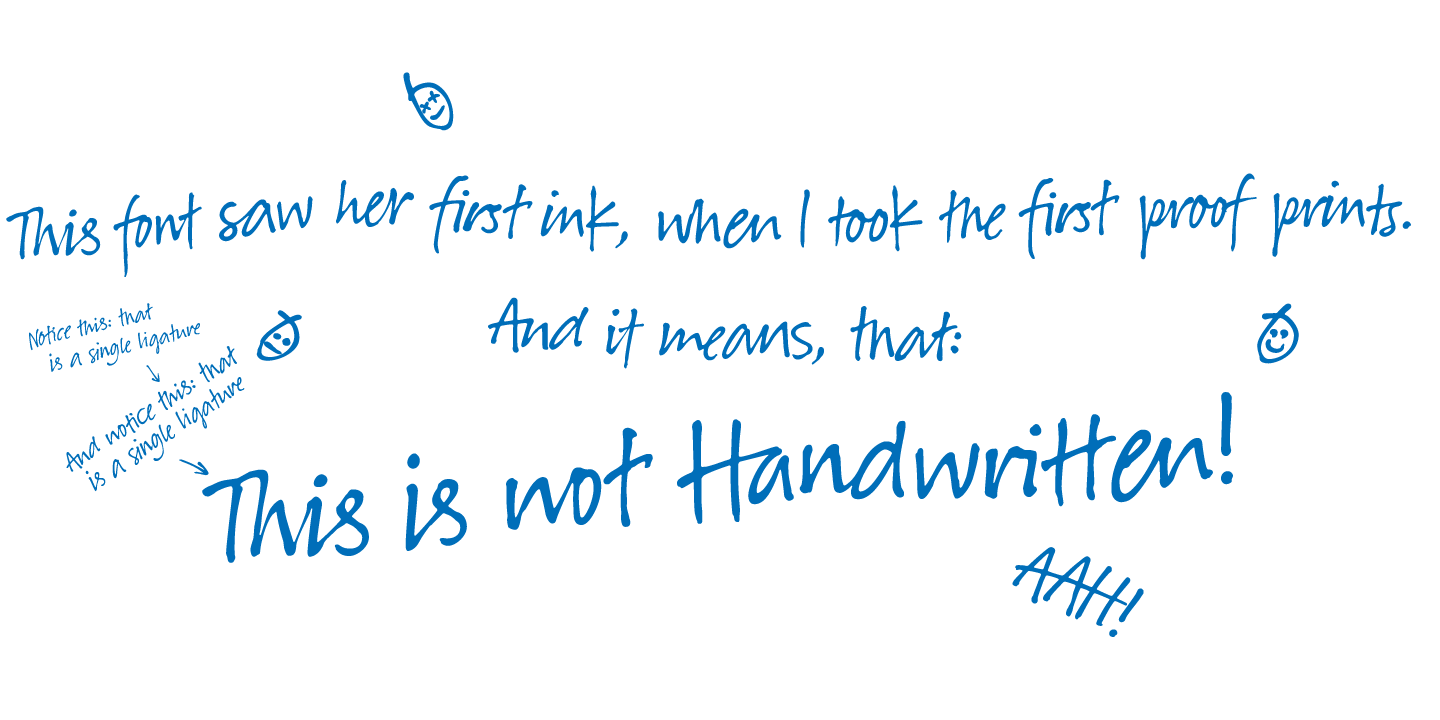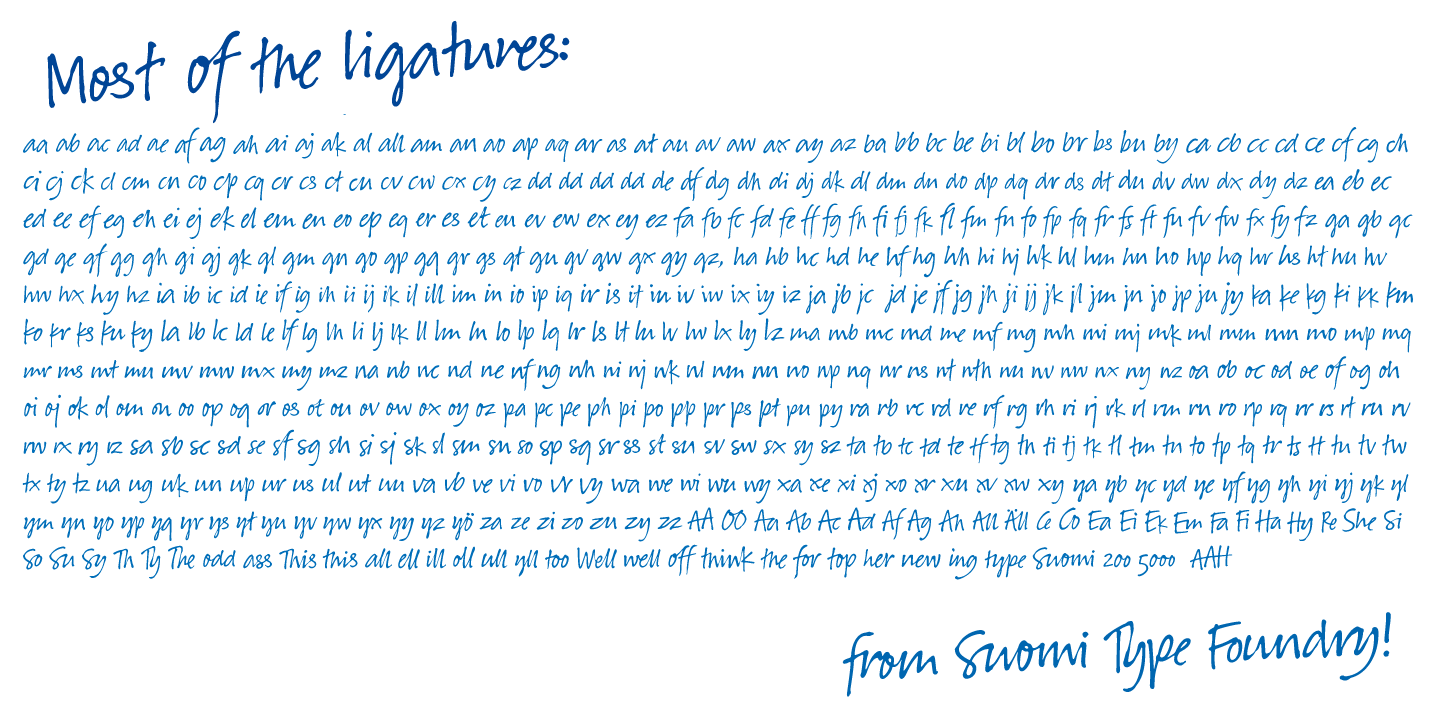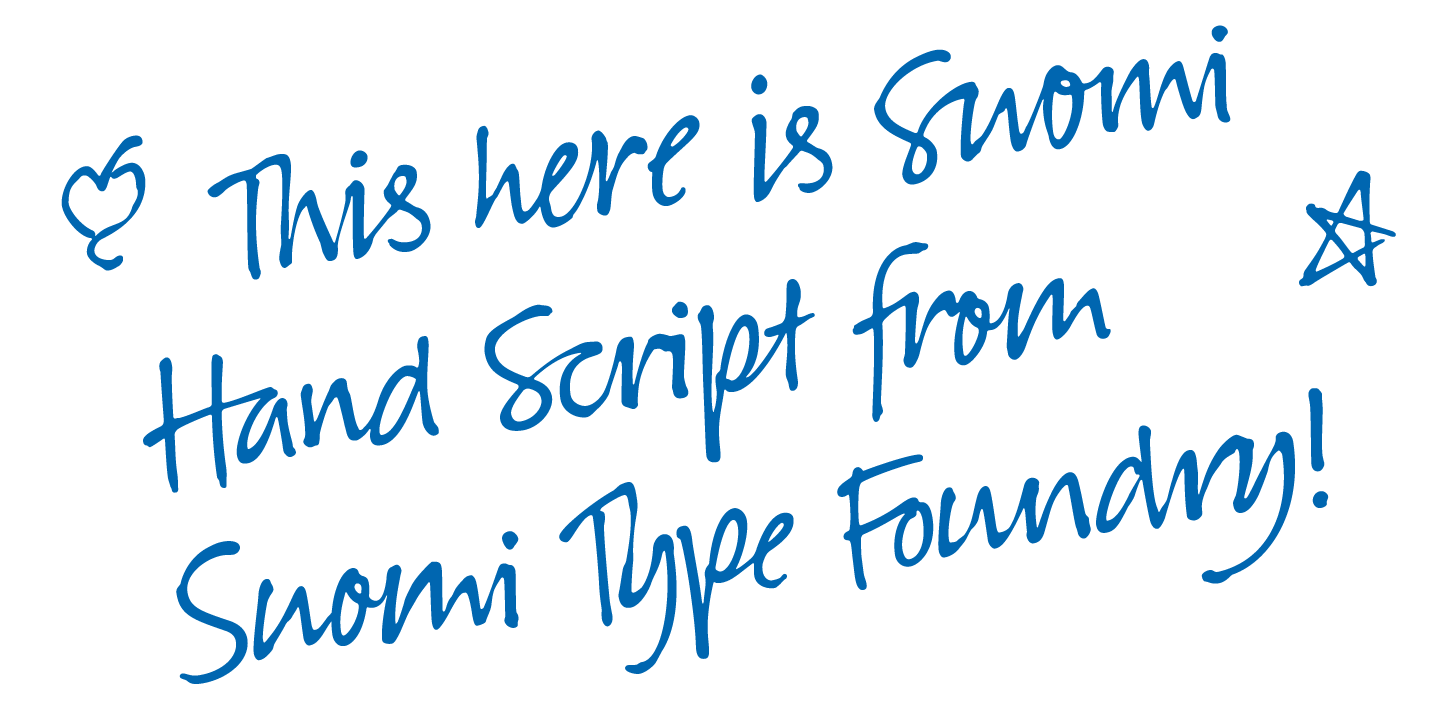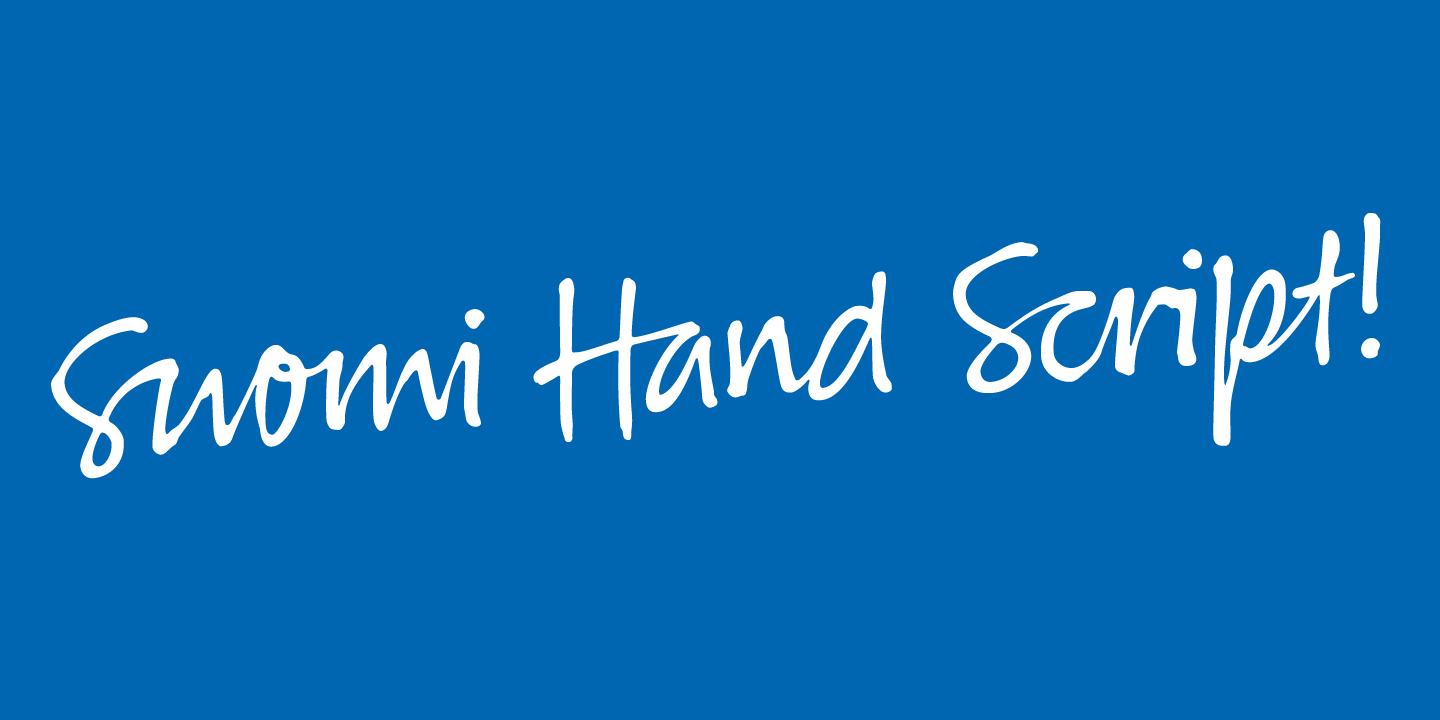
Suomi Hand Script (1 font)
From Suomi Type Foundry
Suomi Hand Script is made for mimicking handwriting with a huge compliment of ligatures. There is more than 700 ligature pairs (even more characters) to help you to make very, very convincing lines of text without ever lifting a pen! It’s been a bestseller in FontShop for years, and now, finally available at FontHaus!